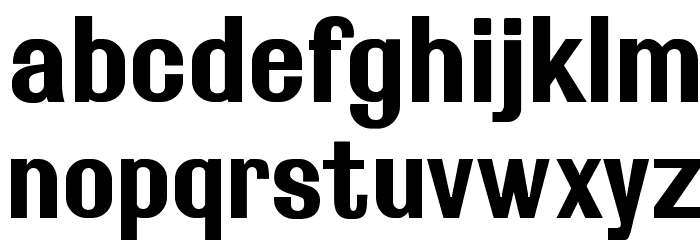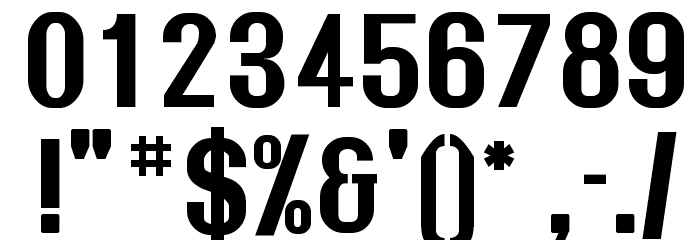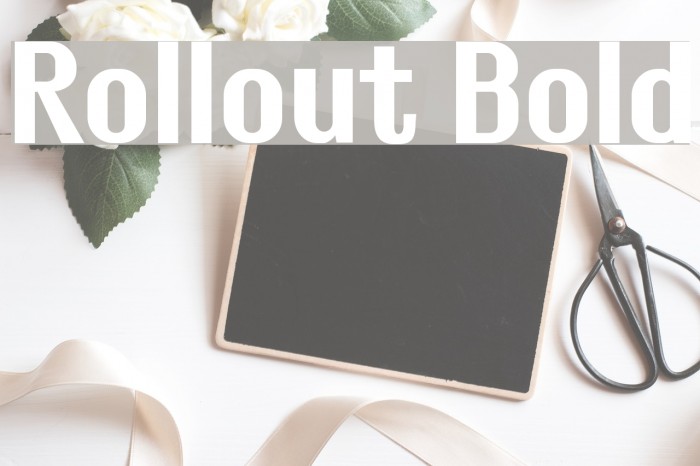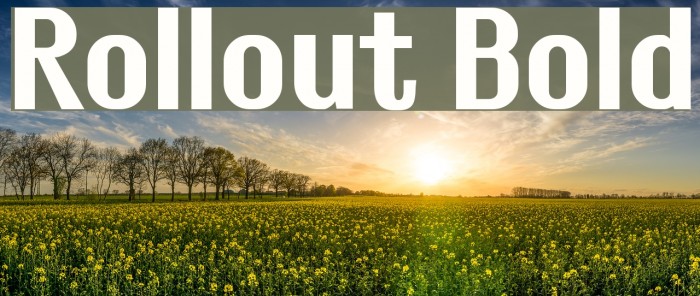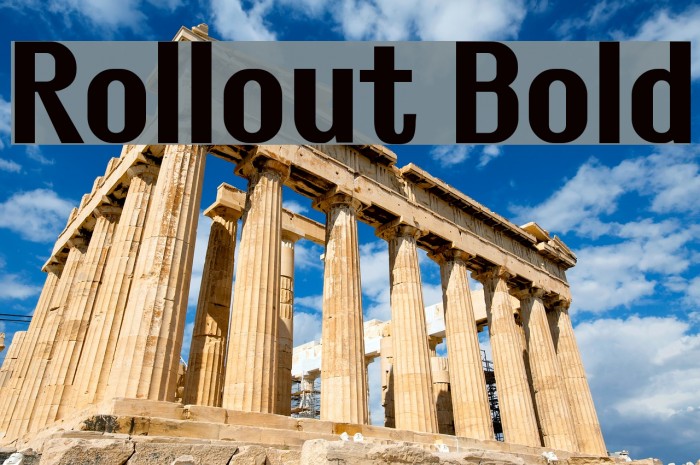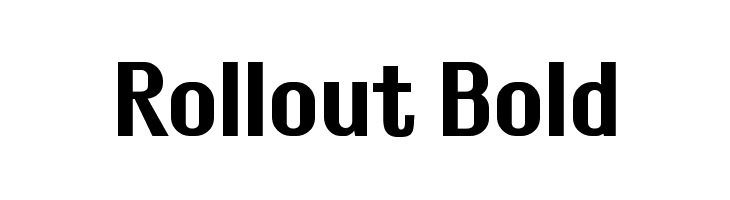
Rollout Bold Font
This typeface features bold, clean lines with a modern and robust appearance. The characters are uniformly thick, providing a strong visual impact. The uppercase letters are tall and commanding, while the lowercase letters maintain a consistent weight, ensuring readability. The numerals are straightforward and align well with the overall bold style. Special characters are clearly defined, adding versatility to the font. The design is well-suited for making statements, with its boldness ensuring that text stands out prominently.
A bold, modern typeface with clean lines and strong visual impact.
- Proposed Projects: Ideal for headlines, posters, branding materials, and any project requiring a strong, modern aesthetic.